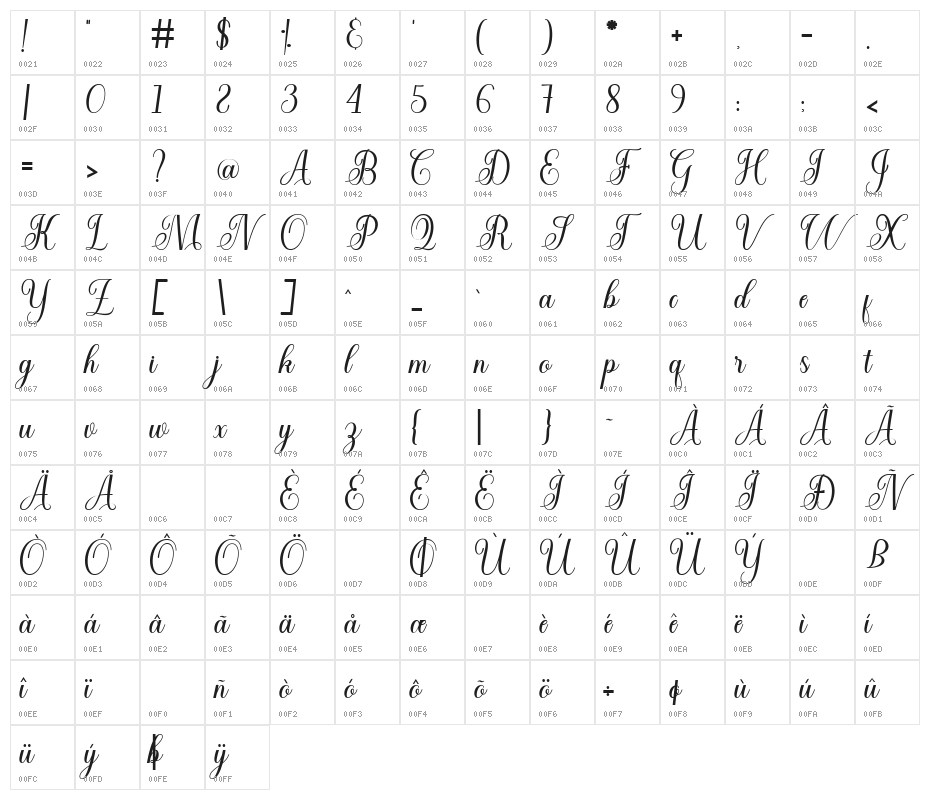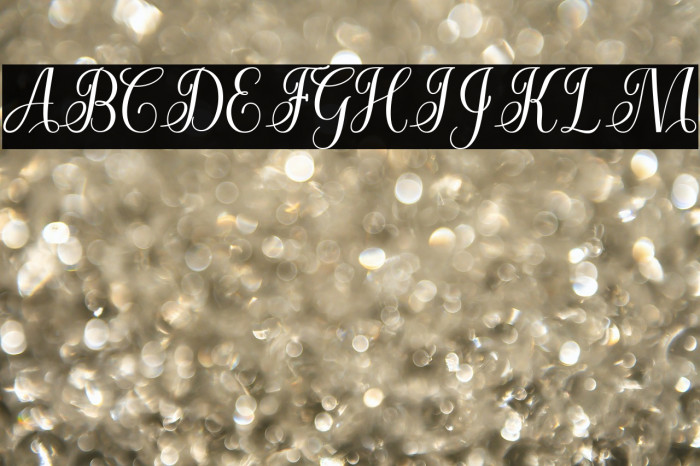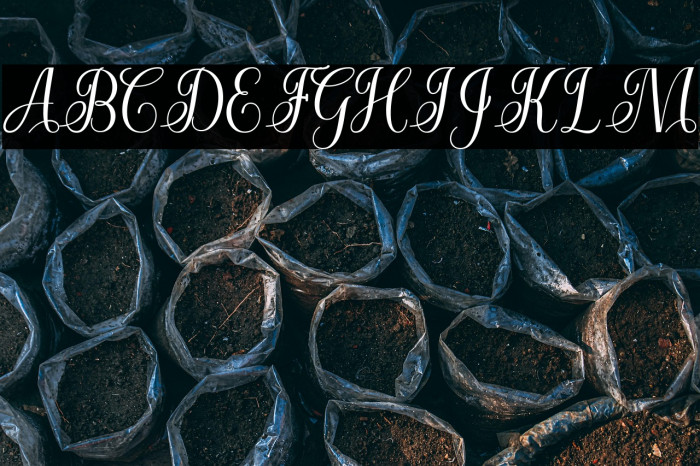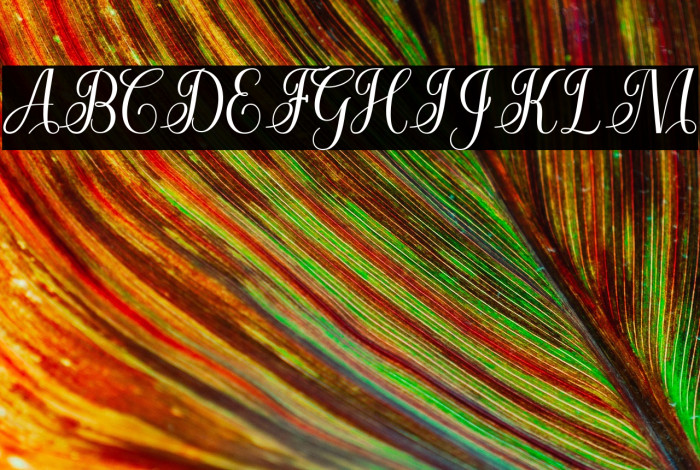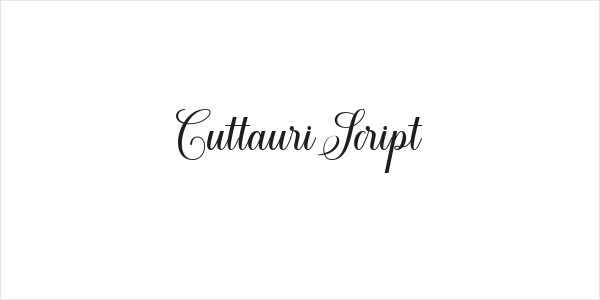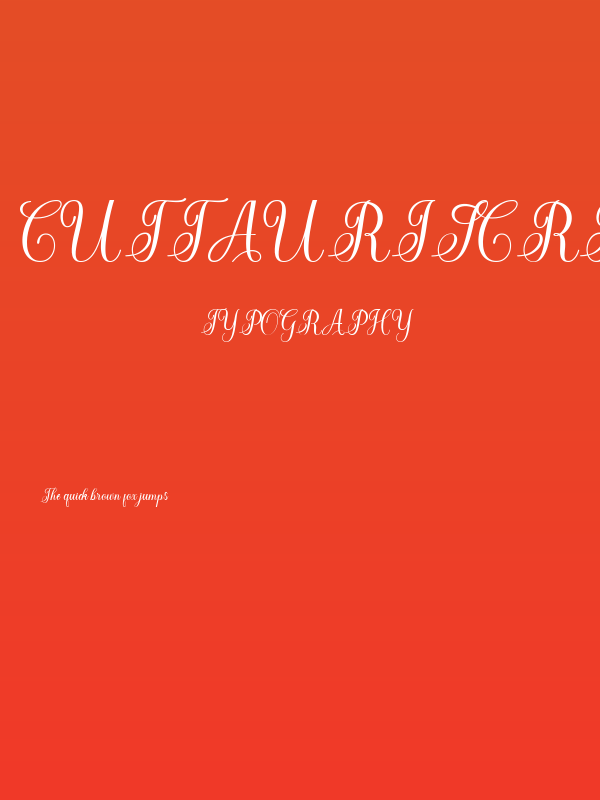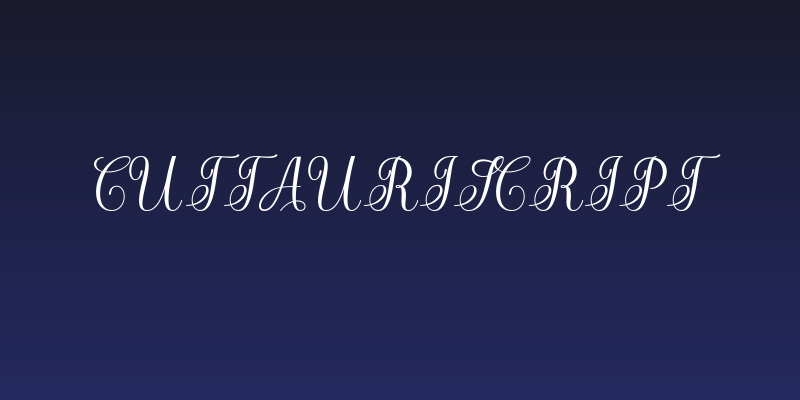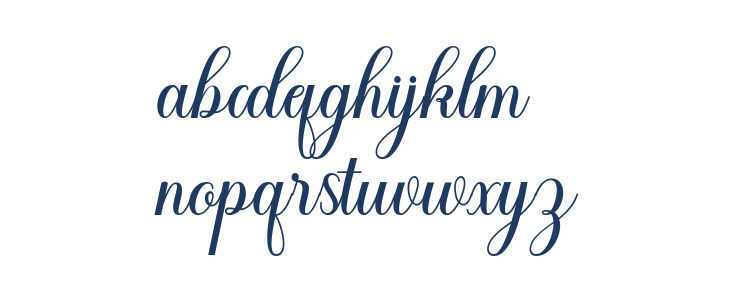
CuttauriScript Font
This elegant script font features flowing, cursive letterforms with a sophisticated and graceful appearance. The uppercase letters are characterized by their intricate loops and swirls, giving them a decorative flair. The lowercase letters maintain a smooth and connected style, enhancing the font's fluidity. The numerals are designed with a classic touch, complementing the overall aesthetic. Special characters are crafted with the same attention to detail, ensuring consistency across the font. This font exudes a sense of refinement and is ideal for projects that require a touch of elegance.
| Overall Style | Elegant |
| Use Case | Logos, Invitations, Decorative text |
| Proposed Projects | Wedding invitations, luxury branding, elegant stationery, and high-end product packaging. |